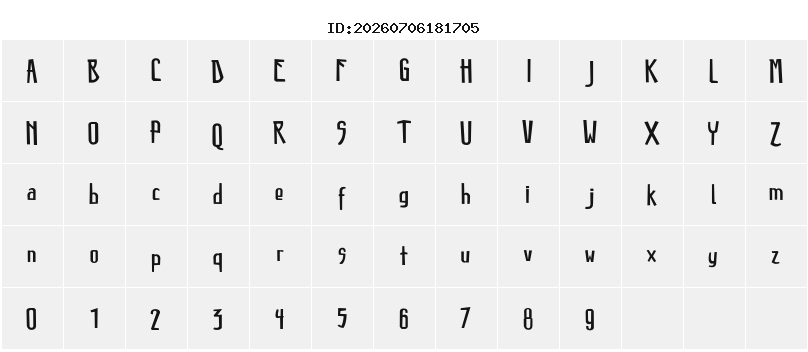
Destroyer Preview
• Font Name: Destroyer
• Full Font Name: Destroyer
• PostScript Name: Destroyer
• Designer: CupperFischer
• Manufacturer: CupperFischer
About Destroyer.otf
Destroyer.otf is a modern, elegant sans-serif font designed for ultimate readability and visual harmony. Perfect for branding, headlines, web design, and print materials.